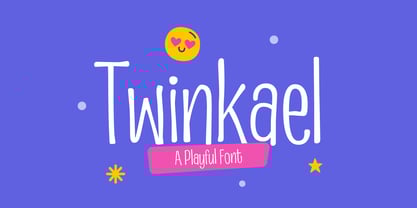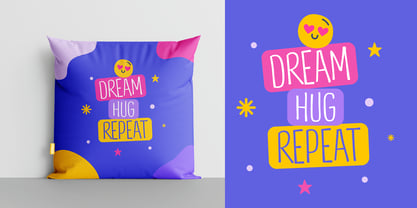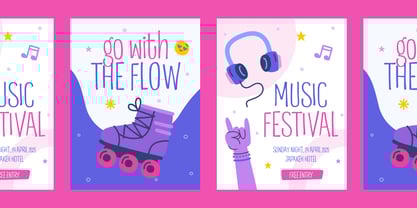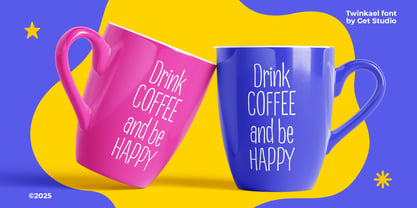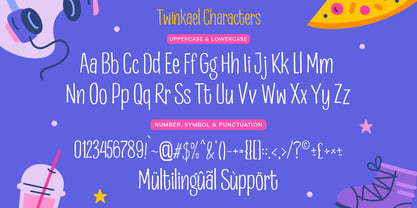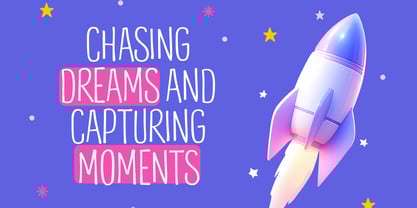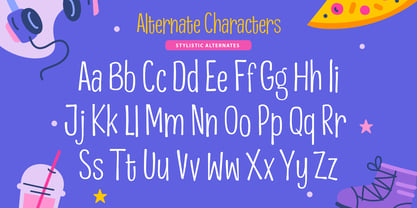
Twinkael
by Get Studio
The Twinkael Font Family was designed by Hermansyah and published by Get Studio. Twinkael contains 1 styles. More about this family
Twinkael is a cheerful handwritten font with a fun and friendly vibe. Its tall, slim letters and quirky strokes make it perfect for kids-themed projects, playful branding, school materials, or anything that needs a joyful touch. Great for quotes, cute logos, packaging, and more—Twinkael brings a smile to your design!
Designers: Hermansyah
Foundry: Get Studio